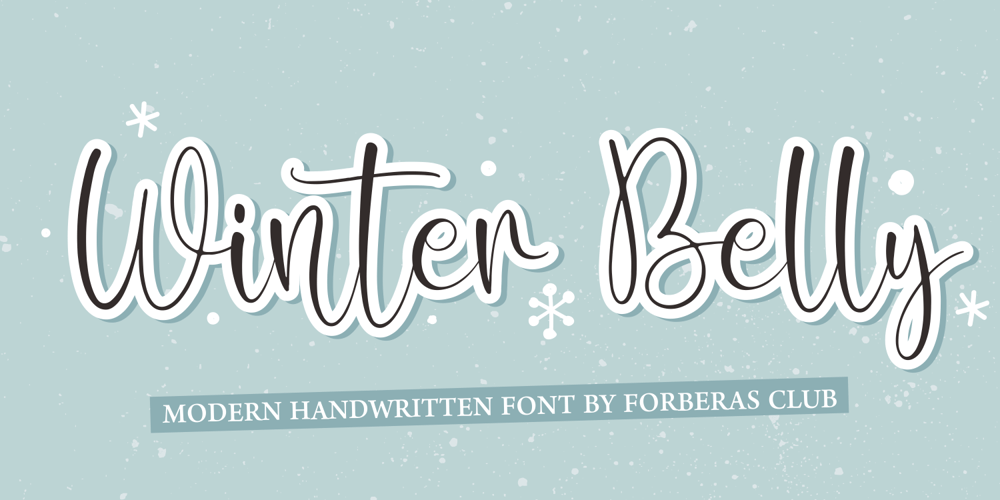
Winter Belly
Winter Belly font
Winter Belly Font Family was designed by ANGGI HERMAWAN and published by Forberas Club. Winter Belly contains 1 styles and family package options. Introducing Winter Belly by Forberas ClubWinter Belly is a Handwritten Script font that will make your designs look classic, Farmhouse, Boho, and Feminine. It is a great font for events, Wedding Project, fashion, apparel projects, signature, album covers, logos, branding, magazines, social media posts, advertisements, but it also works great for other projects. Add it to your fonts’ library, and it will enhance your creativity!Winter Belly is best for: – logos, branding, & Signatures. – Flyers, Album cover, Magazine, & Advertisements. – Website design , design blogs, & fashion. – Quote graphics for social media. – and also it works great for other projects.